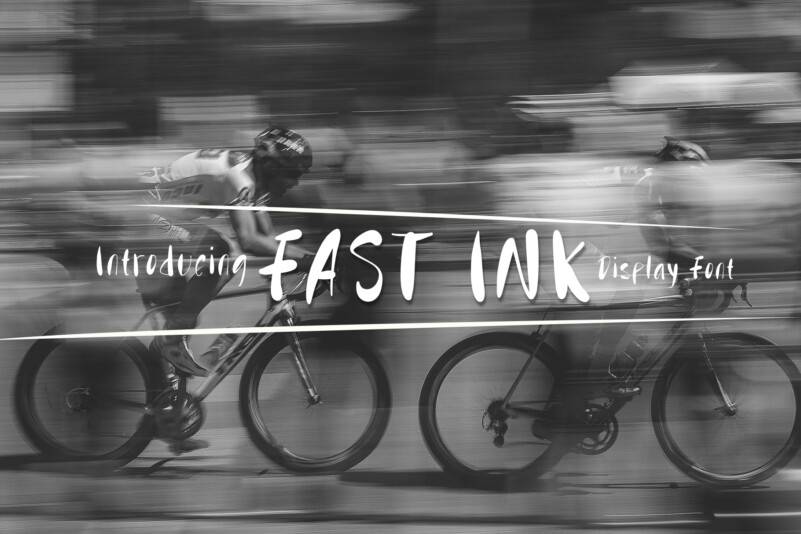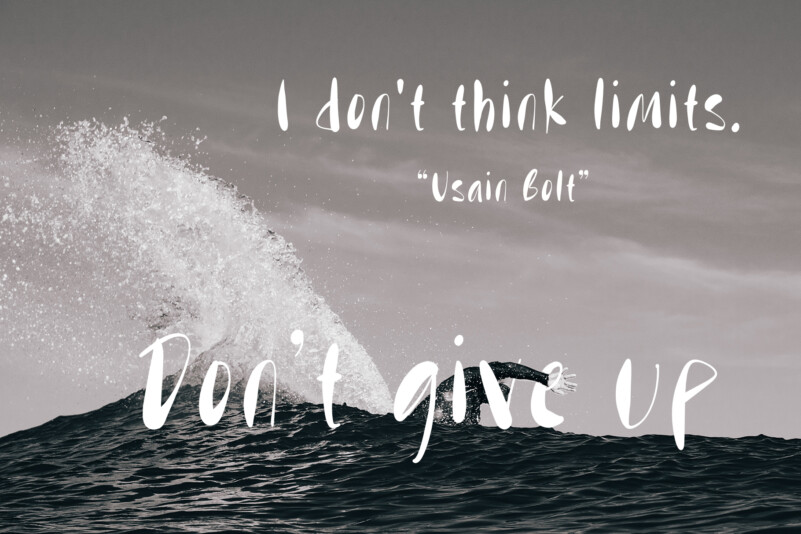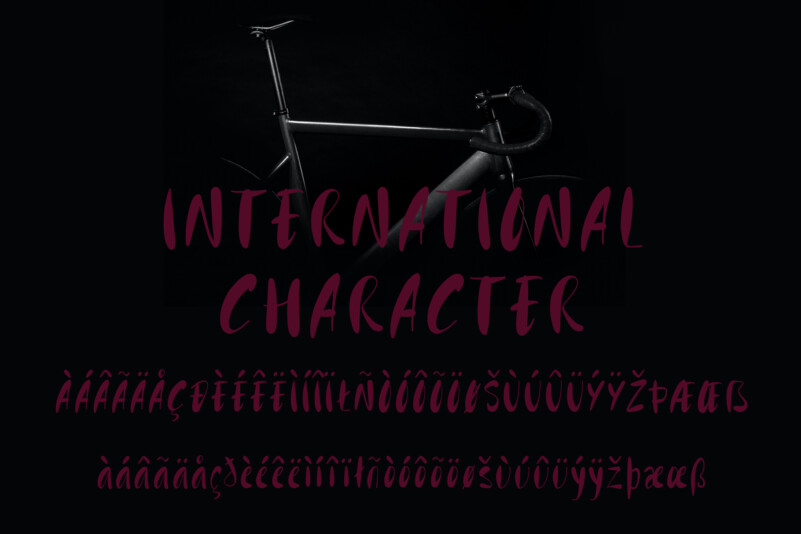
Fast Ink Font is one of the display fonts created with inspiration from the speed and energy revolving around creative art. This font was born out of a desire to express dynamics and power in letter design. With quick and spontaneous ink strokes, Fast Ink presents a sense of movement and vibrant life in each character.
The story began when we were fascinated by the expressive movements and sharpness of ink as it was applied to the canvas. We were inspired by the energy that emerged while creating something with speed and courage. This essence forms the core of the Fast Ink font, expressing strength and freedom in letter design.